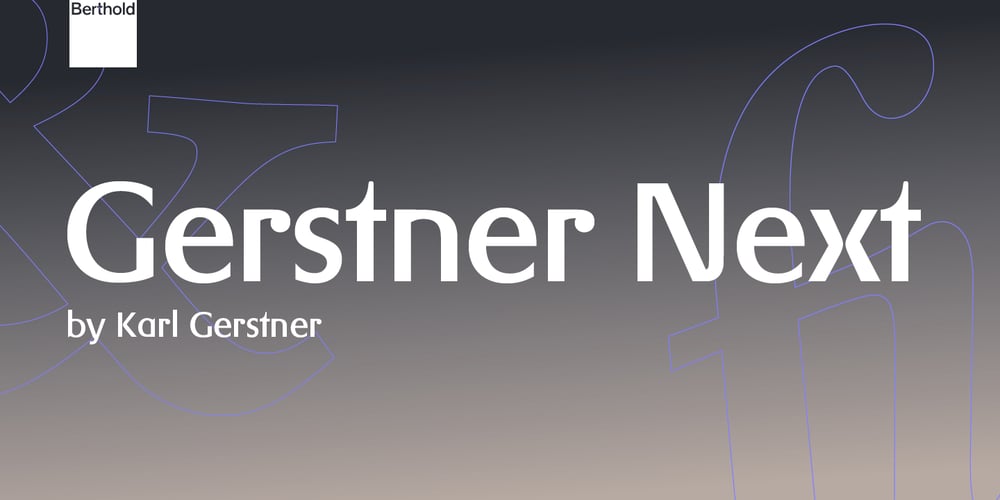
Gerstner Next Font Family was designed by Karl Gerstner and published by Berthold. Gerstner Next contains 8 styles and family package options. Gerstner Next was designed by Dieter Hofrichter in 2007 based on Karl Gerstner’s 1987 design.